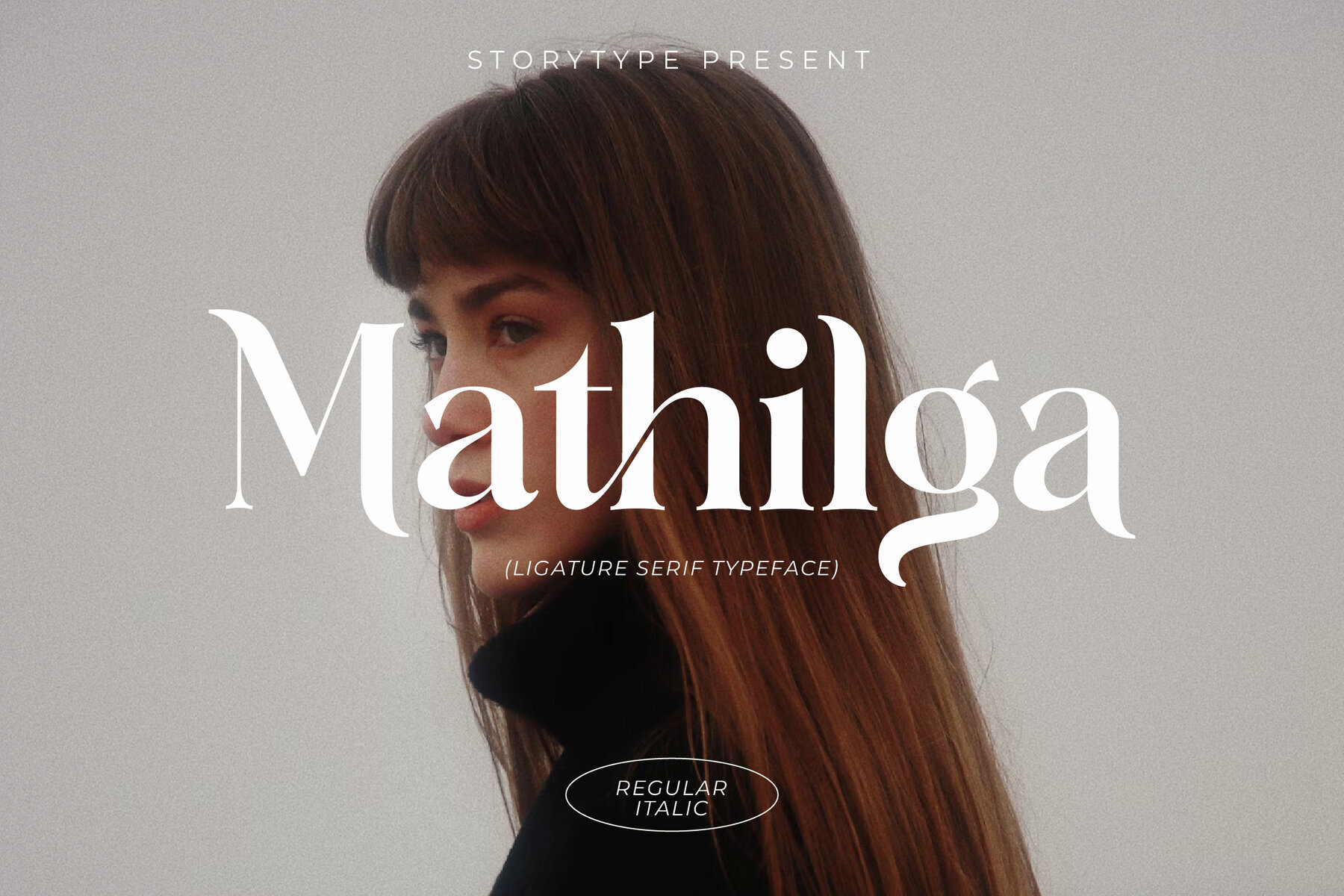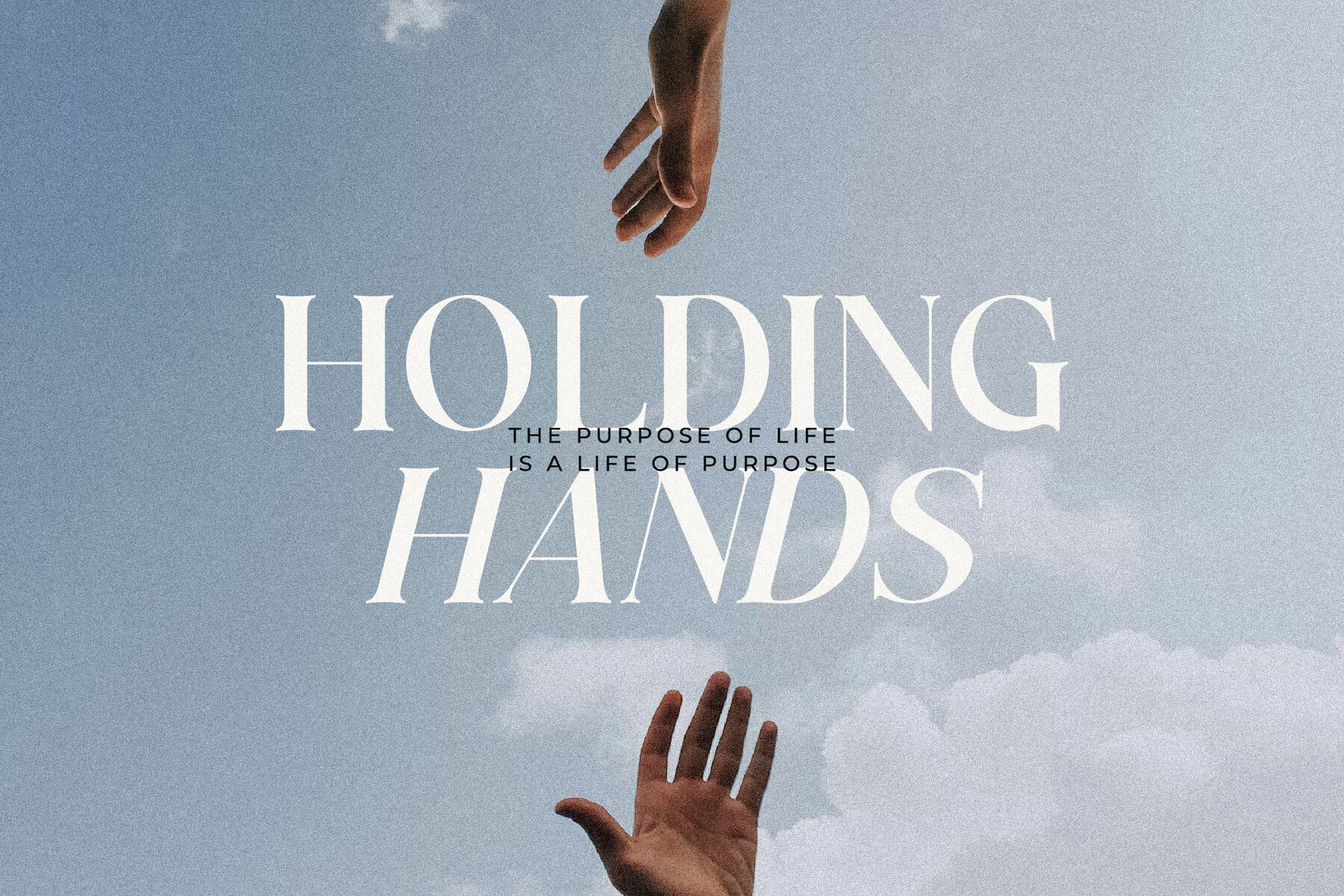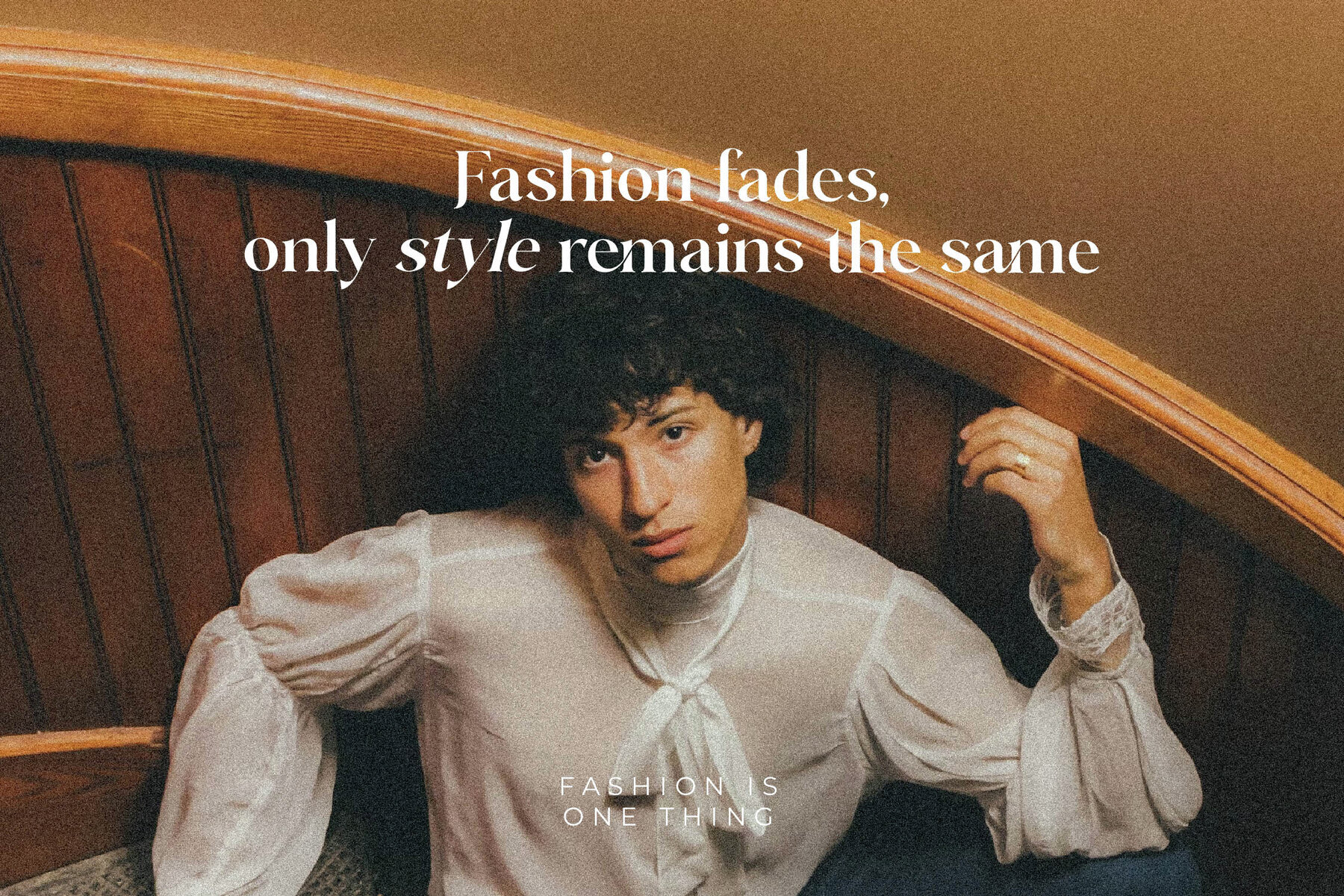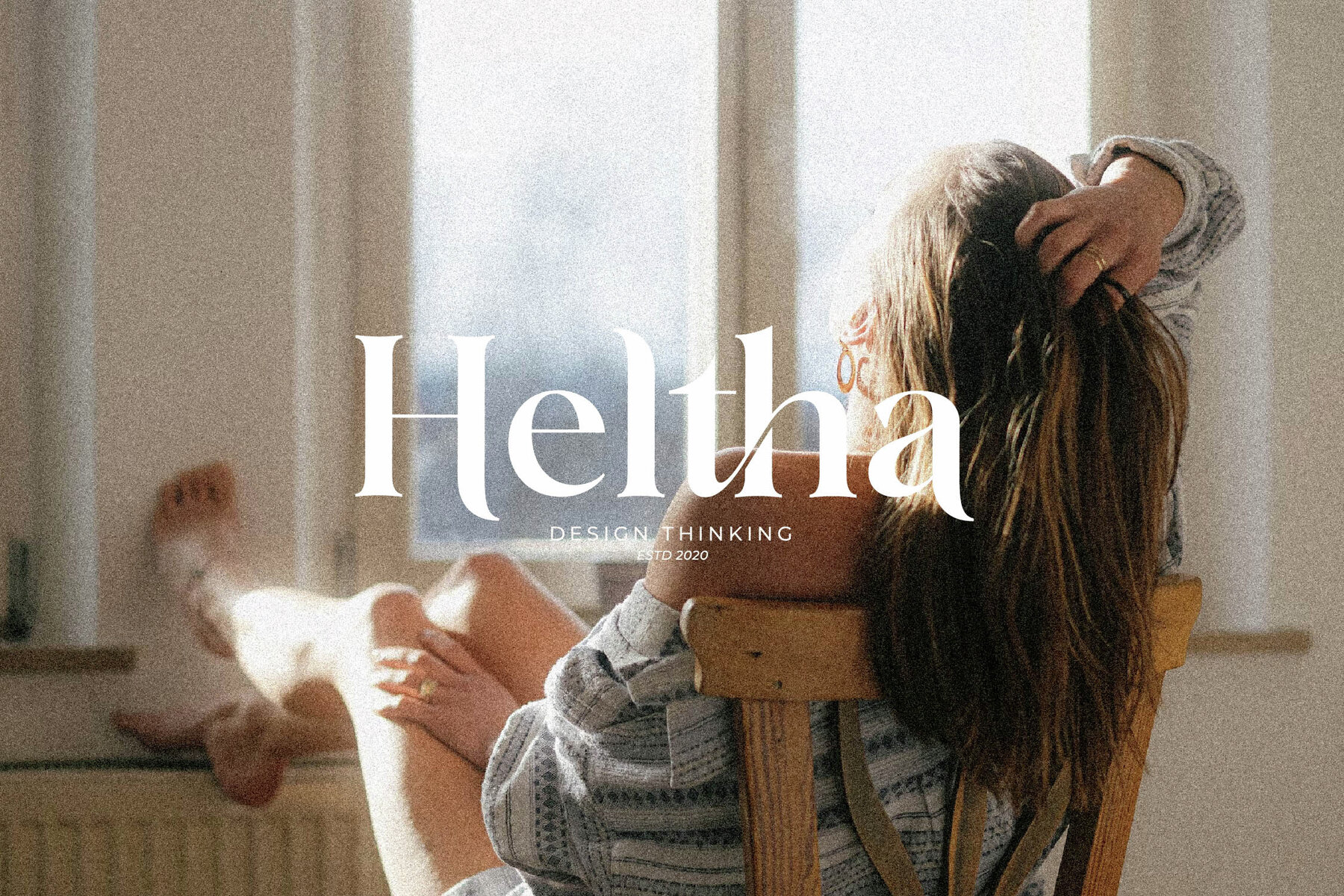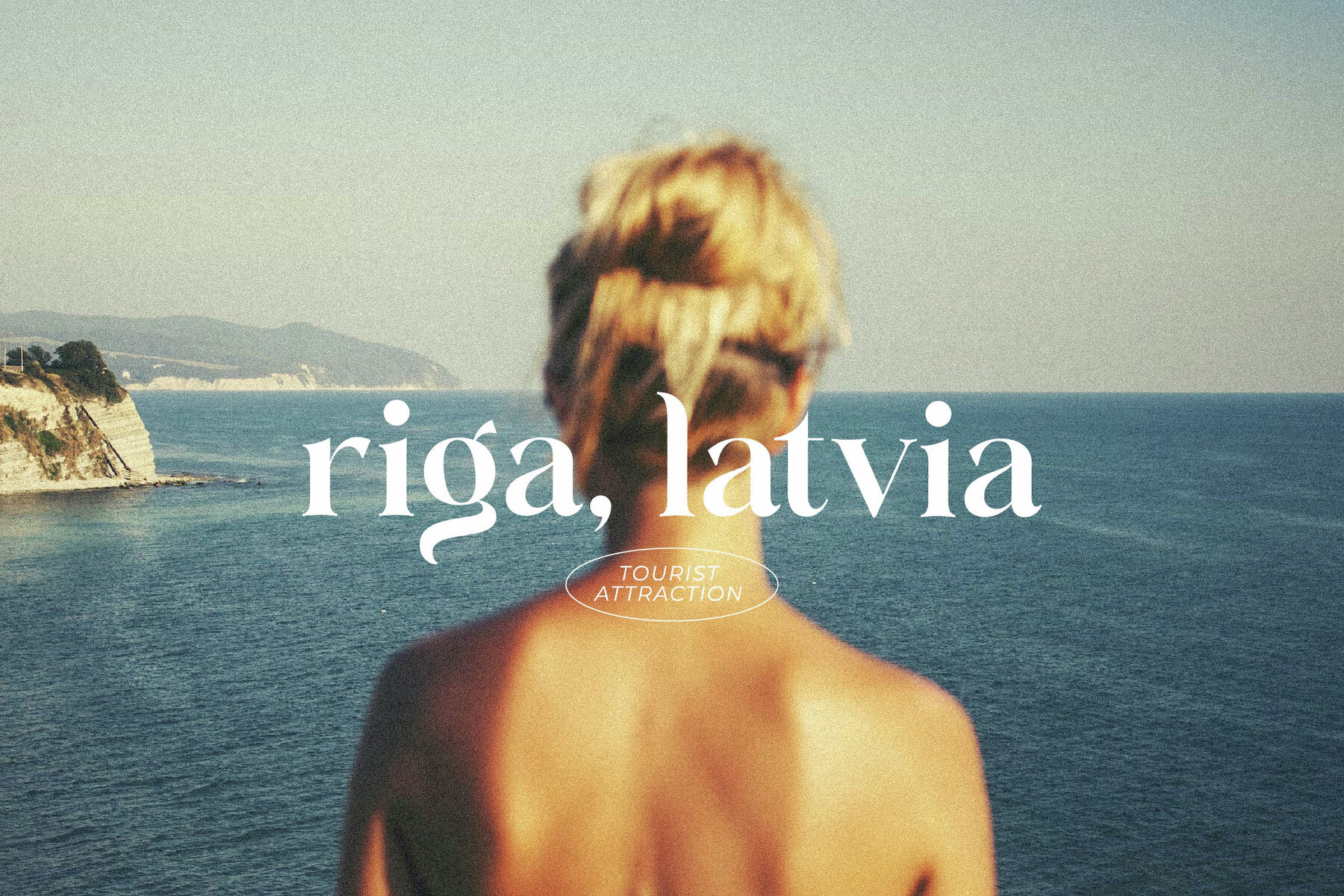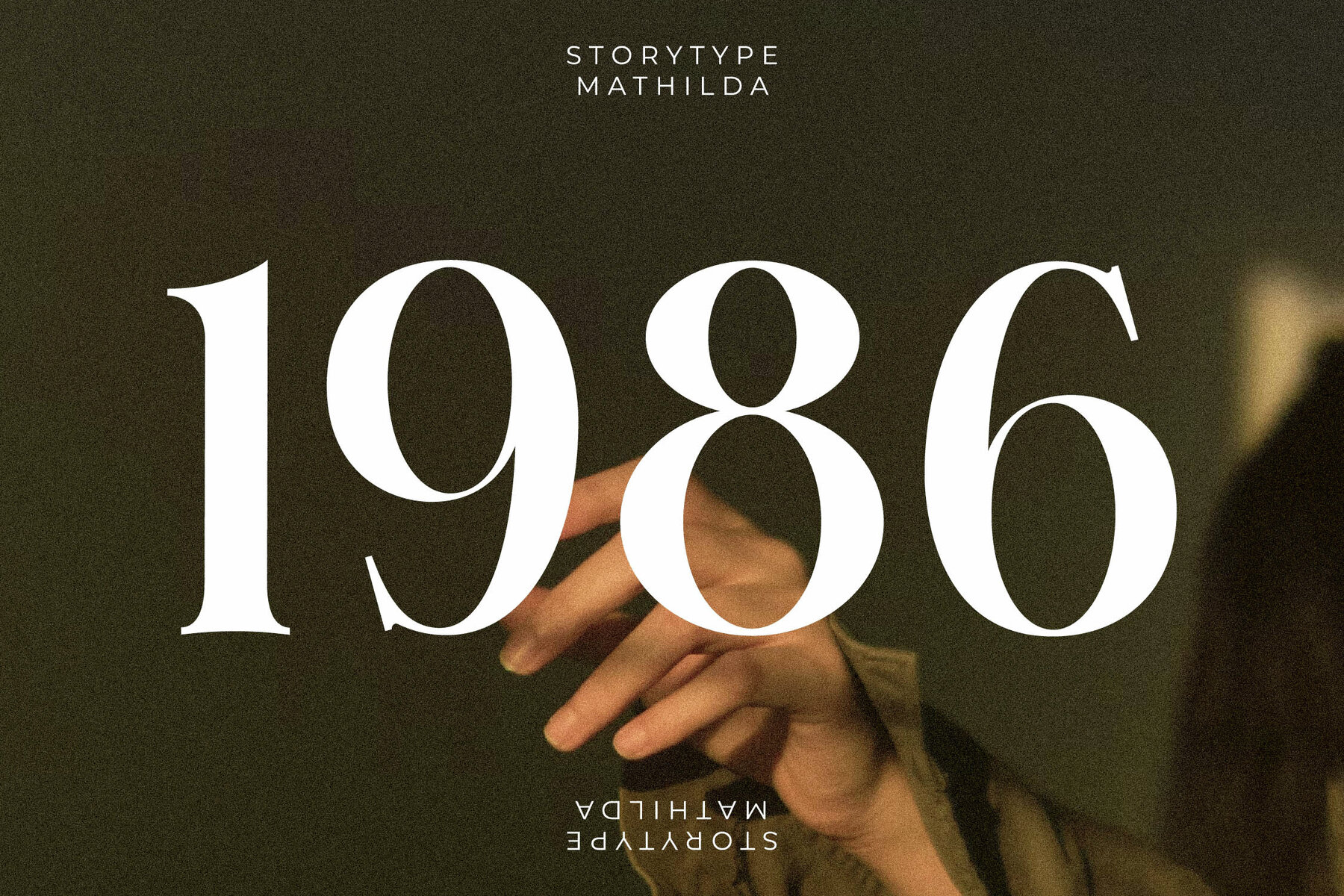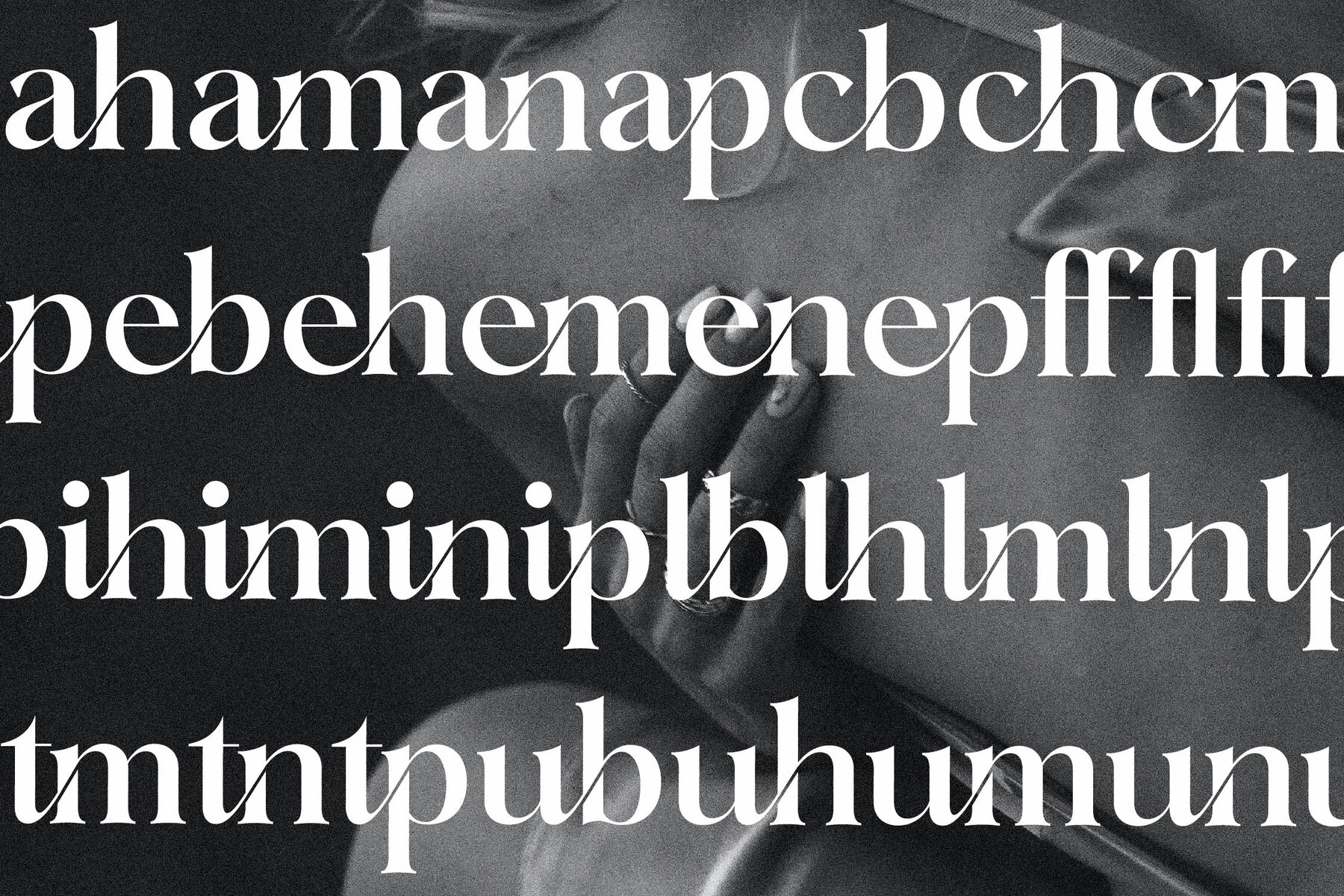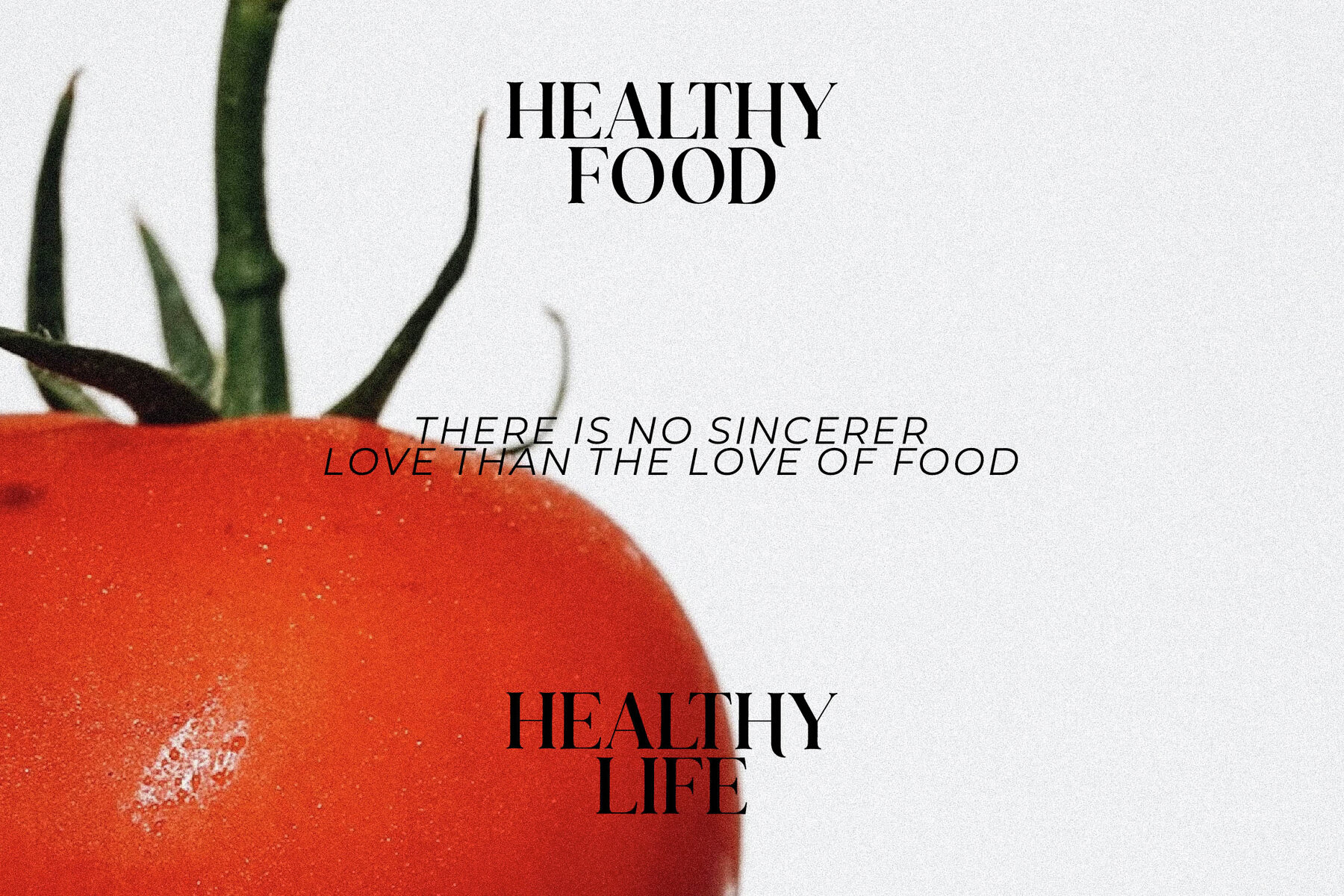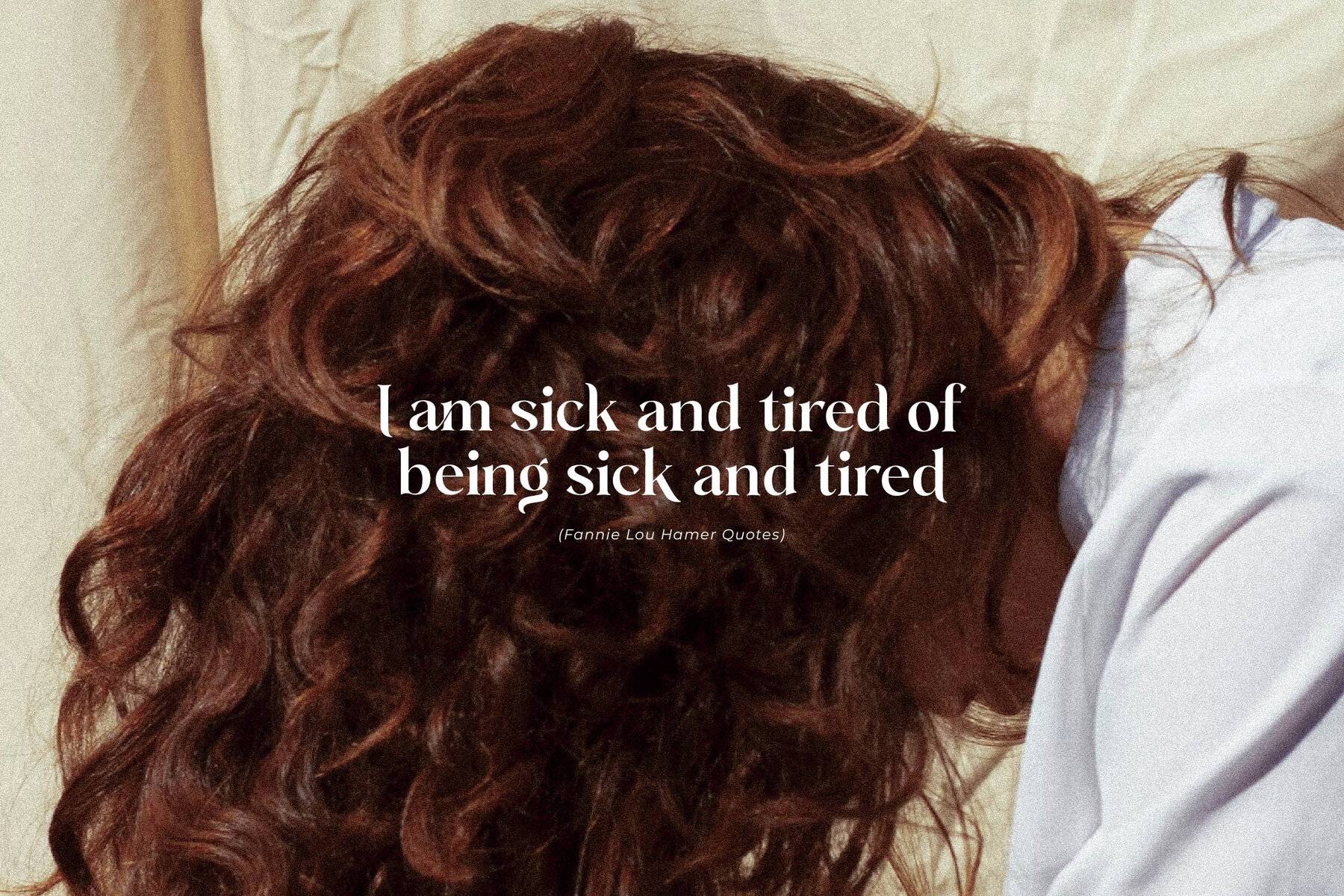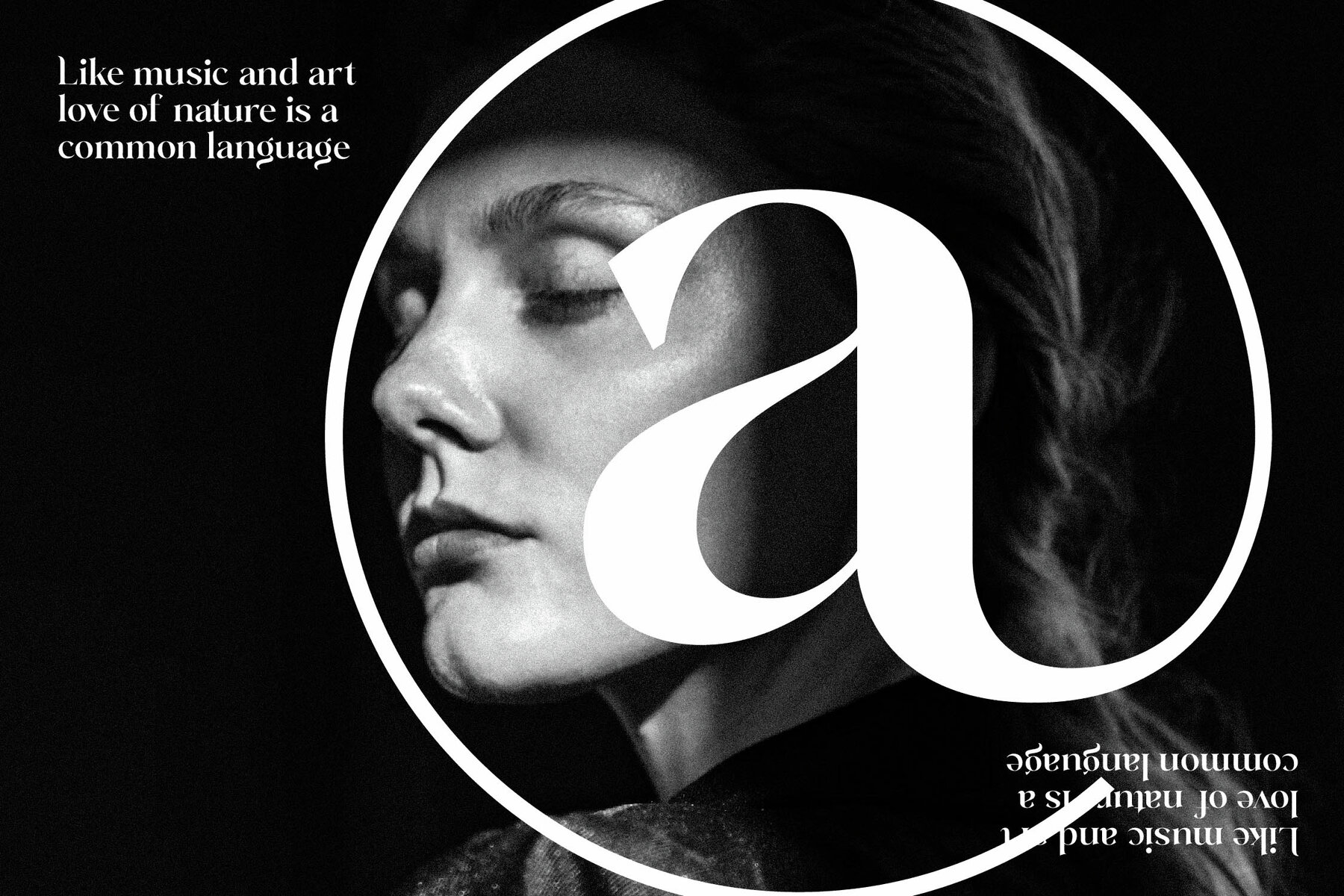
Mathilga Font
Introducing Mathilga Typeface, a sophisticated serif font by Storytype Studio. This exquisite typeface combines modern style with a classic touch, making it ideal for crafting elegant logos, book and movie titles, fashion branding, and more. Mathilga is your go-to choice for projects that demand luxury and class.Mathilga Typeface